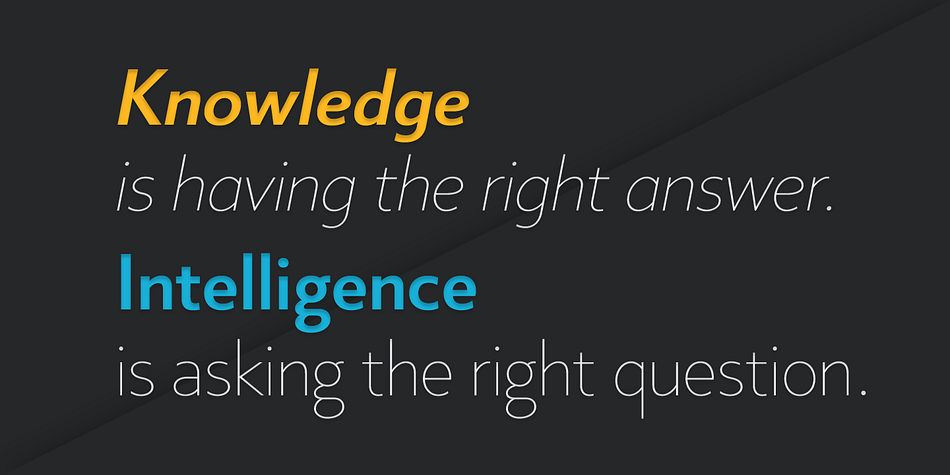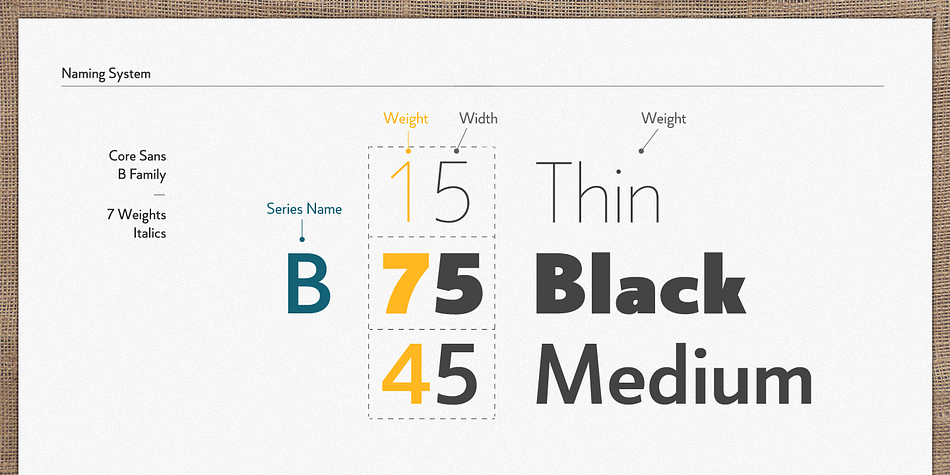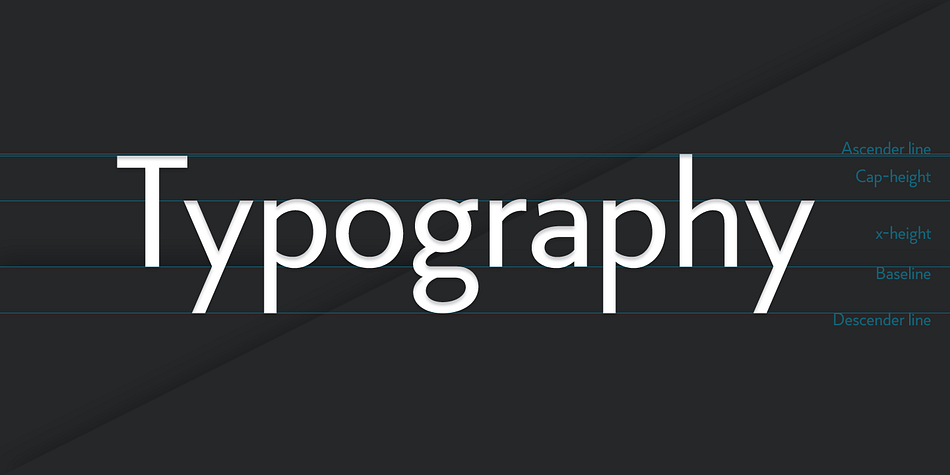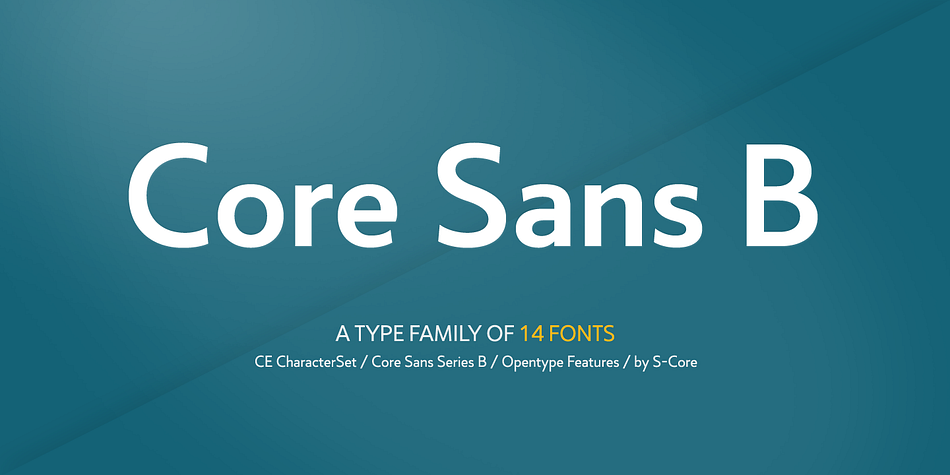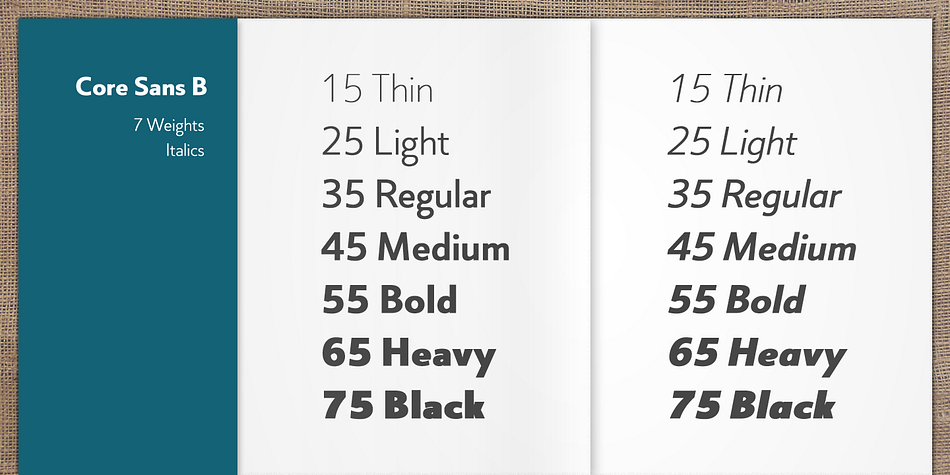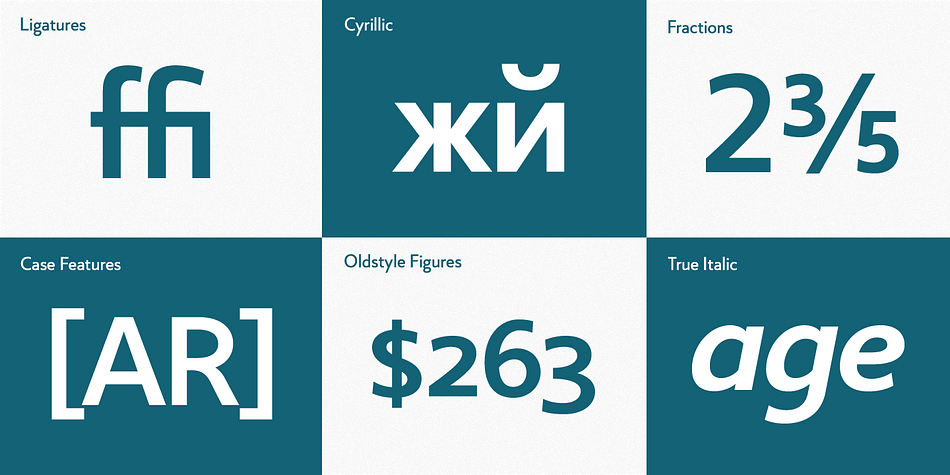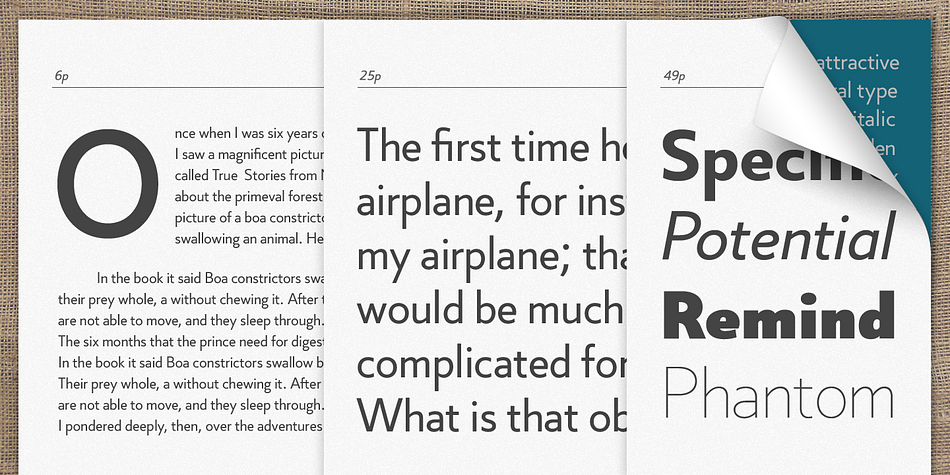
Core Sans B is a sans serif font family. This typeface has fourteen styles and was published by S-Core.
The Core Sans B Family is a part of the Core Sans Series, such as N, NR, N SC, M, E, A, D, G, R and BR.
The family has very a small x-height and large ascenders and descenders which give it an elegant feeling when used in body text.
Core Sans B is a sans-serif family but its structure is similar to serif fonts. This lets you create beautiful paragraphs with this font family. It is very legible even in small size because of its open counters and distinctive shapes.
The Core Sans B family consists of 7 weights (Thin, Light, Regular, Medium, Bold, Heavy, Black) and italics for each weight.
Core Sans B supports complete Basic Latin, Cyrillic, Central European, Turkish, Baltic character sets. Each font includes proportional figures, tabular figures, oldstyle figures, numerators, denominators, superscript, scientific inferiors, subscript, fractions and case features.
We highly recommend it for use in books, web pages, screen displays, and so on.